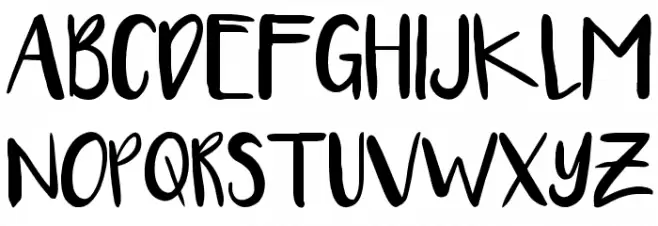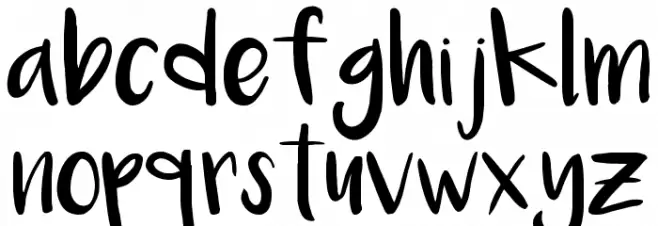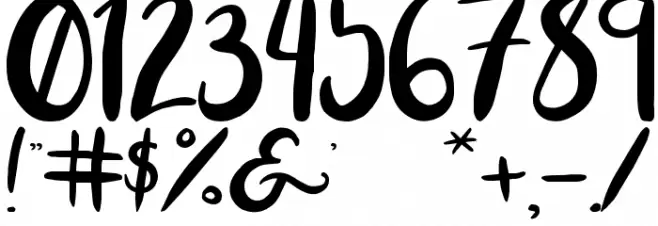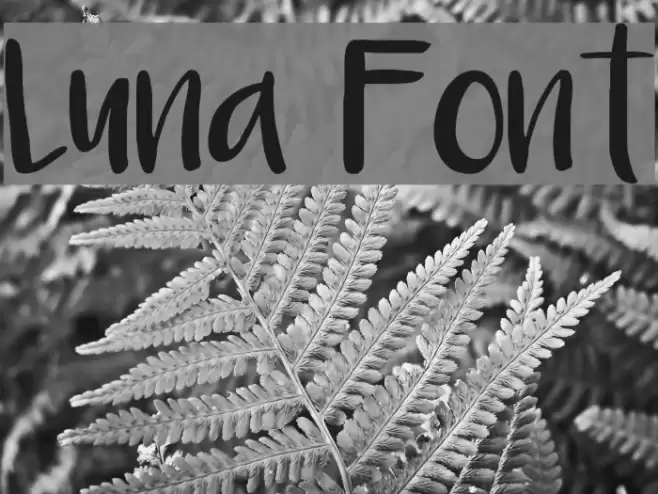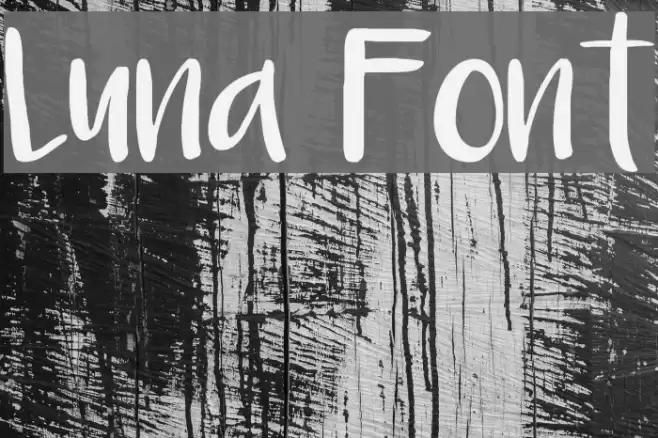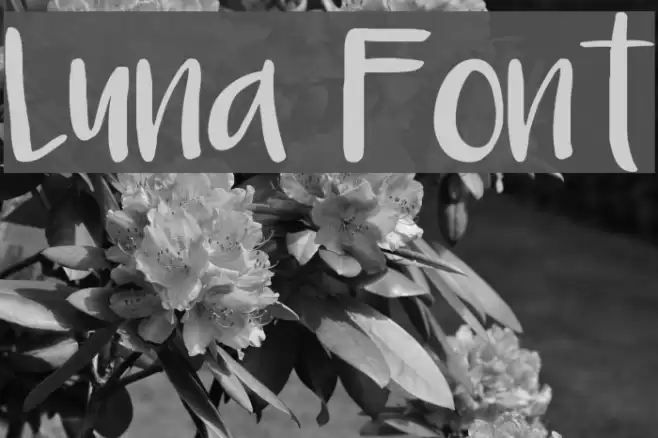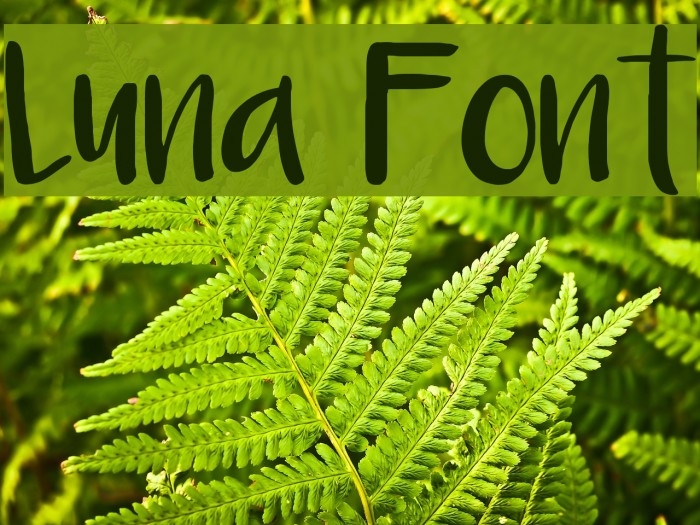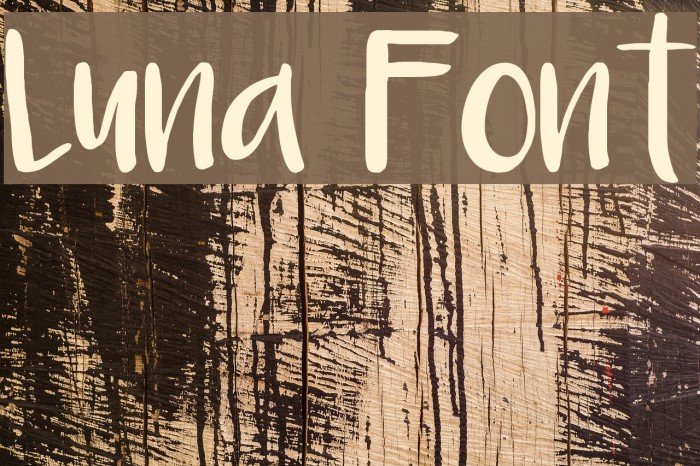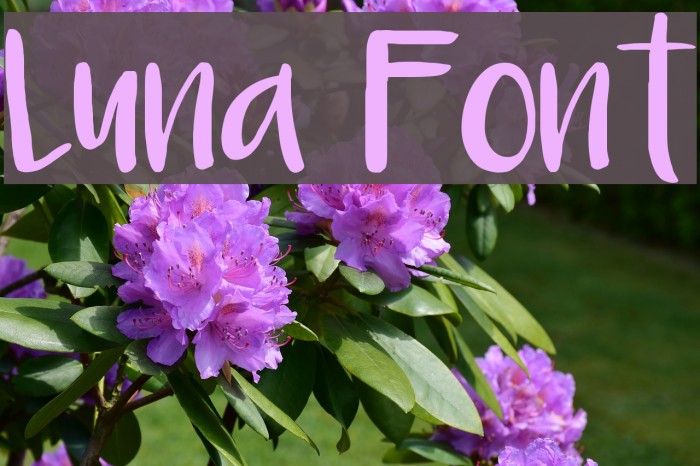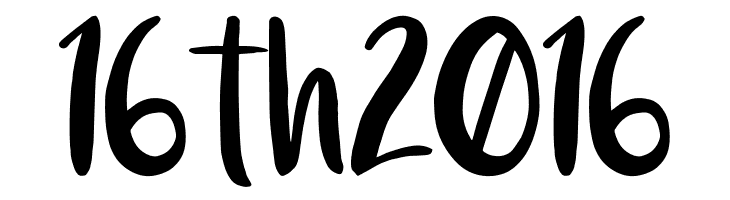
Luna Font
Luna Description
This font features a playful and energetic handwritten style, characterized by its bold and slightly irregular strokes. The letters have a casual, friendly appearance, with a mix of rounded and angular elements that give it a dynamic feel. The uppercase and lowercase letters maintain a consistent flow, while the numerals and special characters add to its versatility. This font's informal and lively nature makes it suitable for projects that require a personal touch or a sense of whimsy.
A bold, playful handwritten font with dynamic strokes.
- Proposed Projects: Ideal for greeting cards, children's books, playful branding, and social media graphics.
- Category: Handwritten
- Overall Style: Playful